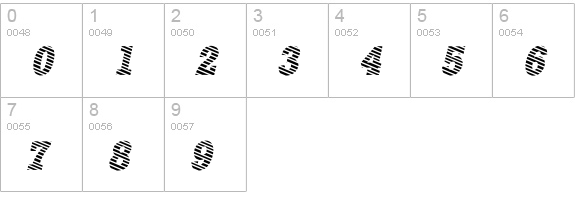
Corrugated SF is a modern and edgy display font that adds a touch of industrial charm to your designs. Its unique corrugated texture gives it a rugged and dynamic appearance, perfect for making a bold statement in headlines, posters, logos, and more. The sharp angles and strong lines of this font exude confidence and strength, making it ideal for projects that demand attention. What sets Corrugated SF apart is not only its striking design, but also the fact that it is completely free to download. You can easily access this versatile font at FontsMarket.com without any cost, allowing you to unleash your creativity without limitations. Whether you're a designer looking to add a touch of grit to your work or a business owner seeking a distinctive branding element, Corrugated SF is the perfect choice for your next project. Download it today and see how this free font can elevate your designs to new heights.